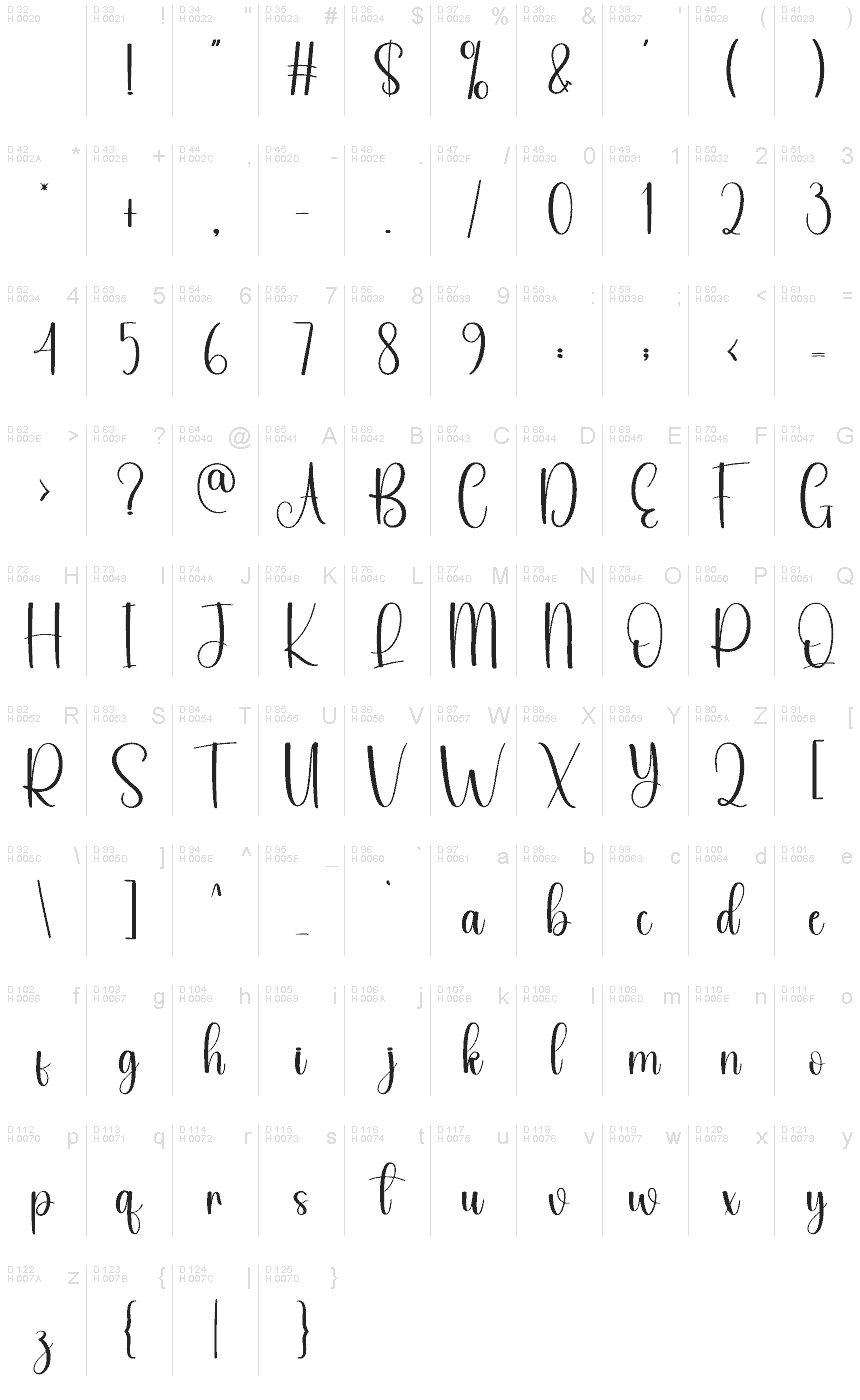
Siblings
Siblings font by Andi Moz is an elegant and expressive calligraphy font with condensed characters. This modern script typeface beautifully captures the fluid sophistication of a signature style in a wonderful design that is perfect for artful typography tasks. Stylish use is guaranteed thanks to the highly aesthetic letters which appear artistic yet readable at the same time.
Impress everyone with stylish use of Siblings font in logos, headlines, signatures, custom invitations, apparel designs, tattoo texts, quotes among many more. Get made book covers & games covers that sell more copies with this free calligraphy font that incorporates creativity and professionalism all in one file!